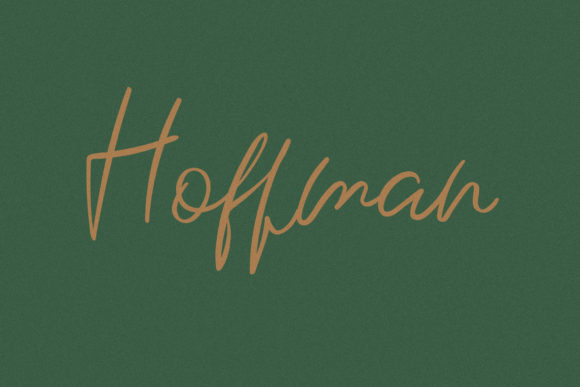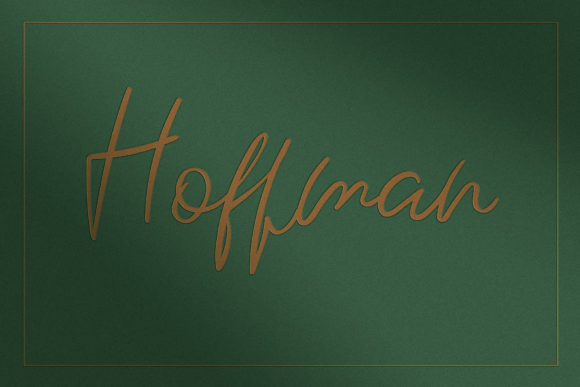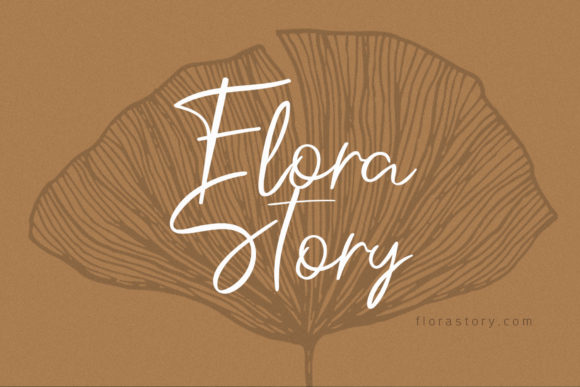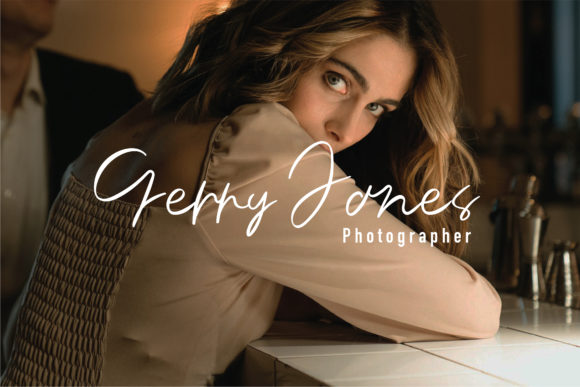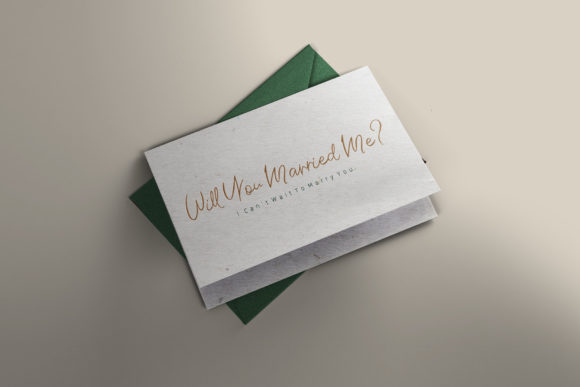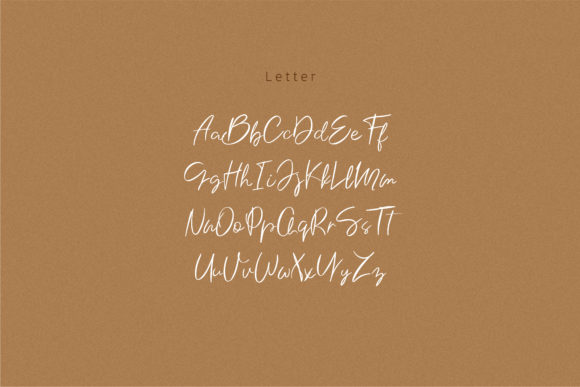
Hoffman Font
About Hoffman Font
Hoffman is a classy, modern and relaxed script font, defined by a charming look.
It looks stunning on wedding invitations, thank you cards, quotes, greeting cards, logos, business cards and every other design which needs a handwritten touch.